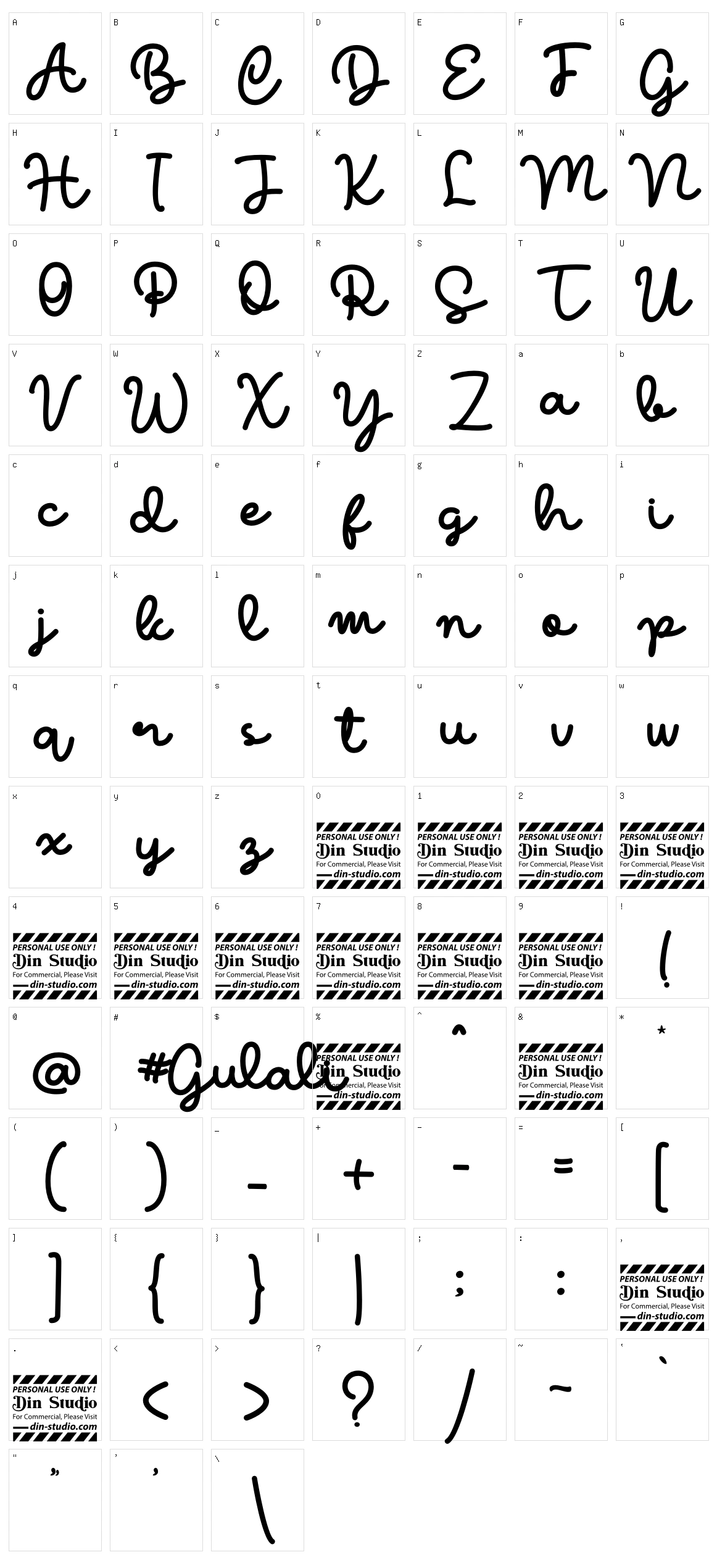
The free font Gulali is carefully designed by Din Studio, showcasing a thoughtful balance of creativity and usability and falls under the Script font style. When you download the ZIP file, it contains only 267.08 KB of font files, making it lightweight and quick to download. Please review the license details below to understand permitted usage and distribution rights. If license information is not available, we recommend using this font for personal projects only or contacting the author directly for commercial usage permissions.